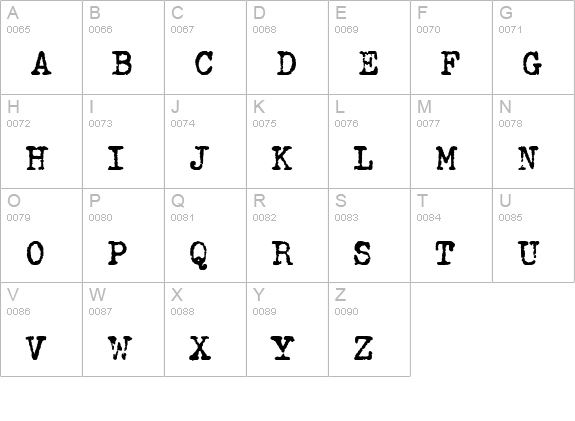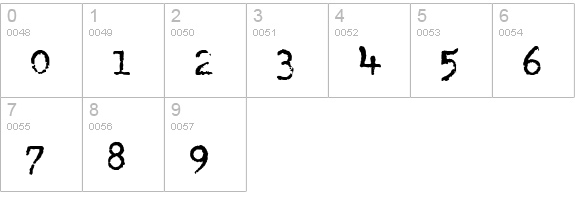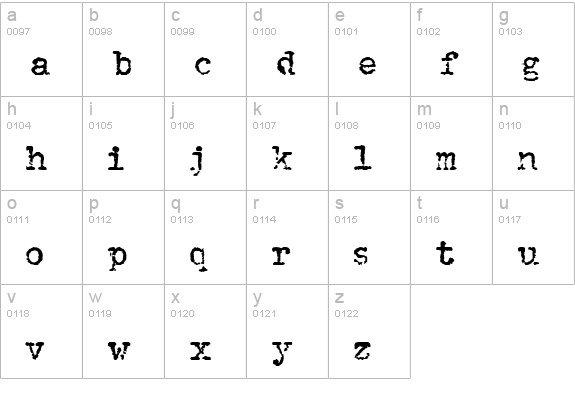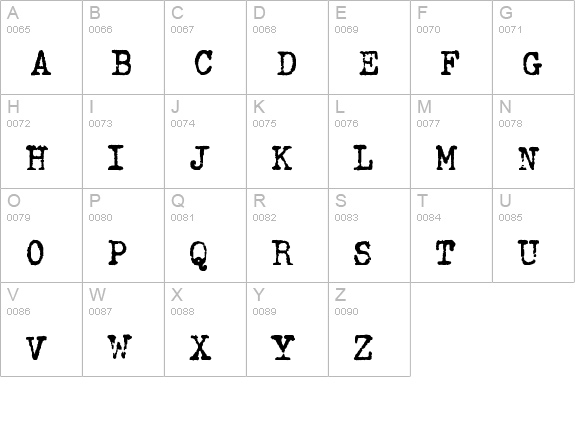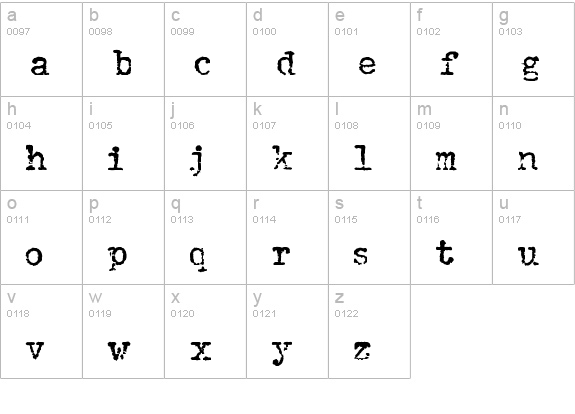
PFDumbOldTypeTwo Font Details
Introducing PFDumbOldTypeTwo font, a unique and playful typeface that adds a touch of whimsy to any design project. With its quirky and hand-drawn appearance, this font is perfect for creating eye-catching headlines, posters, invitations, and more. PFDumbOldTypeTwo features a bold and exaggerated lettering style that is sure to make a statement. Best of all, PFDumbOldTypeTwo is available for free download at FontsMarket.com. Whether you're a graphic designer looking to add a fun twist to your work or a hobbyist wanting to experiment with new fonts, PFDumbOldTypeTwo is a great choice. Don't miss out on this fantastic font - download it today and unleash your creativity!